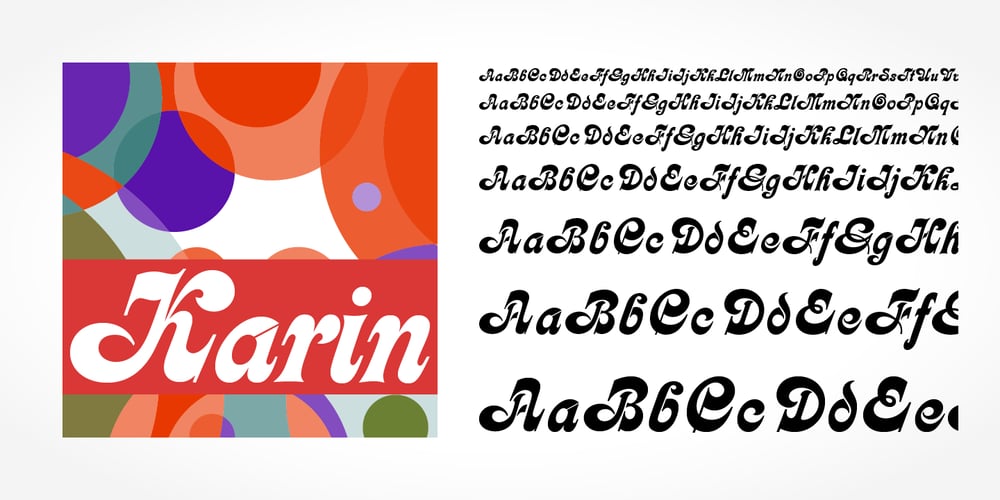
Karin Pro Font Family was designed by Otto Weisert and published by SoftMaker. Karin Pro contains 1 styles and family package options. A great script typeface of Art Nouveau